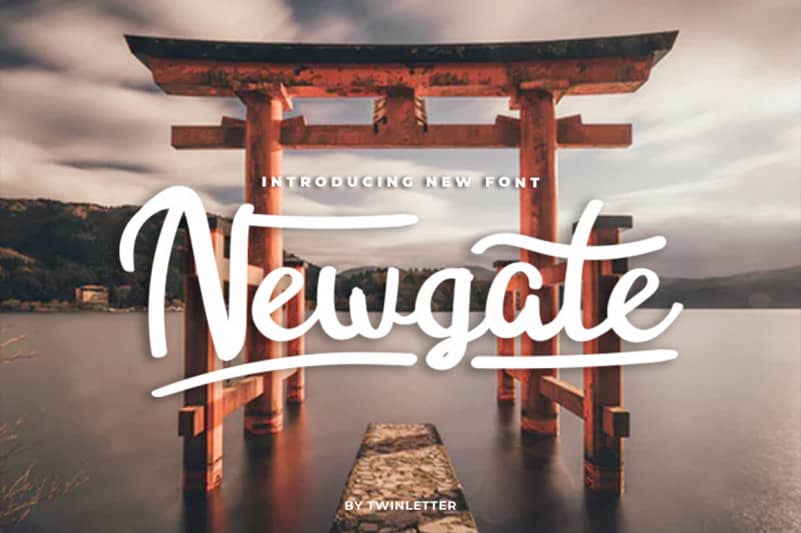
Newgate Script Font
Newgate Script Font is a cute and casual handwritten font with an incredibly friendly feel. Whether you’re looking for fonts for Instagram or calligraphy scripts for DIY projects, Newgate will turn any creative idea into a true piece of art!